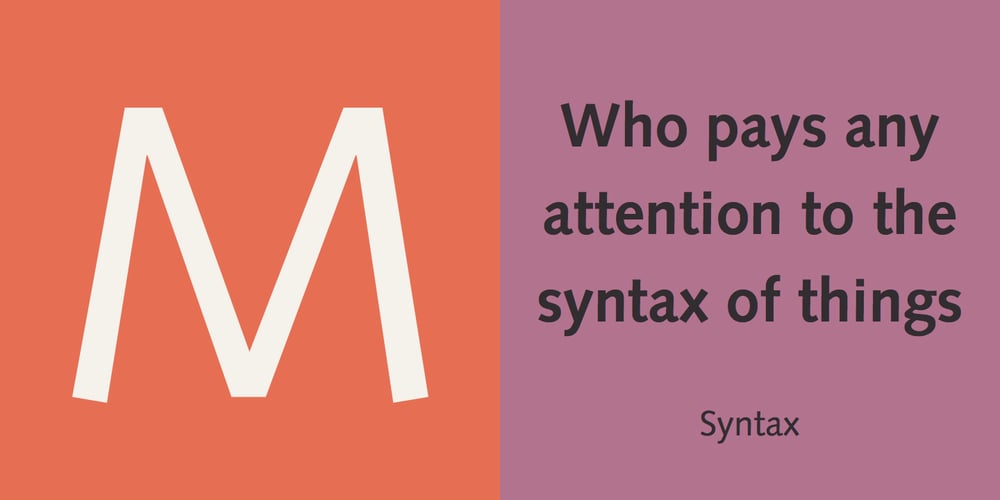
Syntax Font Family was designed by Hans Eduard Meier and published by Linotype. Syntax contains 5 styles and family package options. Syntax was developed by Hans Eduard Meier in 1968 and presented by the font foundry D. Stempel AG. Its figures are based on Old Face characters but have a distinctive, modern design. The inclination to the right lends the font a dynamic feel.